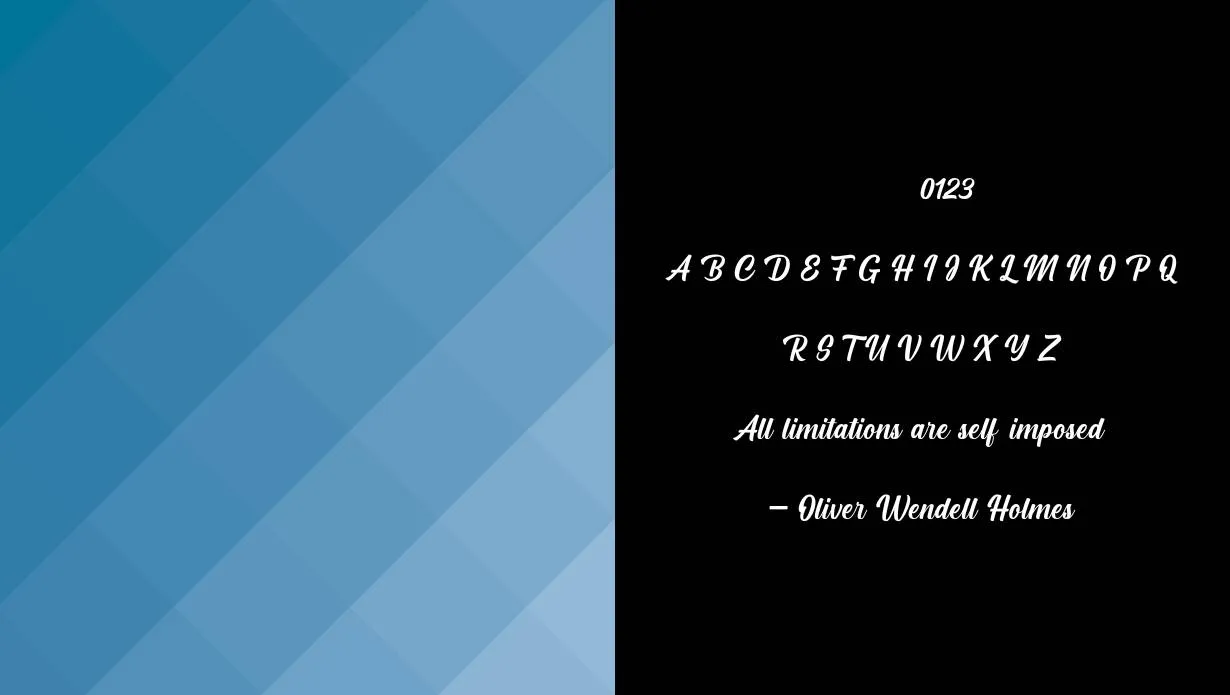
Cream Cake is a calligraphy font that was created by Ef Studio. This typeface design was also created by a very famous studio named Ef Studio. This is a very attractive and charming typeface design that is comprised of unique uppercase, lowercase, numbers, and symbols.